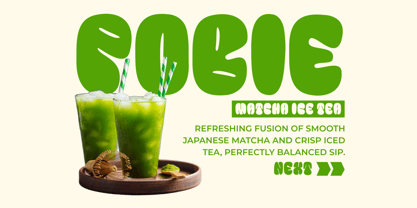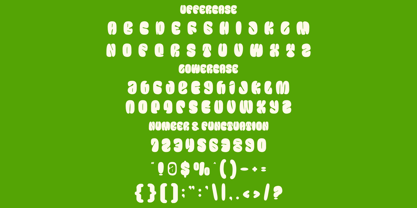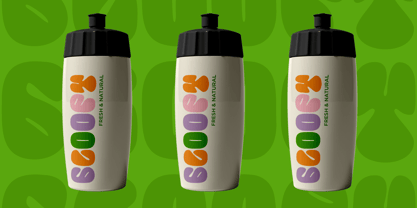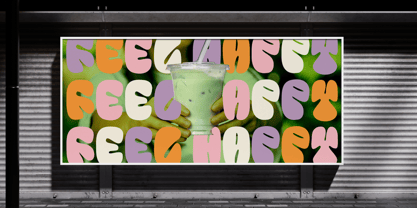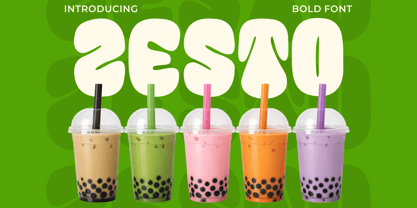
Zesto
by Shanaf
The Zesto Font Family was designed by Yesie Erma Yunita and published by Shanaf. Zesto contains 1 styles. More about this family
Zesto Bold Display Font brings a cheerful retro energy with chunky rounded letters and strong visual impact. Each character uses thick strokes, soft corners, and inflated curves that feel smooth and inviting. Decorative inner cuts create movement, while the heavy weight keeps every word bold and readable. This font carries a groovy, fun, and modern vintage spirit that stands out fast. It works perfectly for logos that need a friendly and memorable voice. Zesto Bold Display Font suits beverage shops, bubble tea brands, snack labels, dessert stores, cafés, and creative food startups. Use it for branding that wants warmth, fun, and instant shelf appeal. The letterforms sit wide and balanced, making titles look full and confident. Rounded proportions help long words stay playful without losing clarity. This display style fits packaging, menu boards, posters, stickers, social media ads, flyers, banners, headlines, and product launches. It also works for magazine covers, book titles, greeting cards, crafting projects, and storefront signage. The groovy personality matches themes like fresh drinks, sweet treats, organic products, kids snacks, smoothie bars, and casual retail brands. Use uppercase for loud impact or lowercase for softer charm. Every composition feels energetic, tasty, and ready to attract attention.
Designers: Yesie Erma Yunita
Foundry: Shanaf